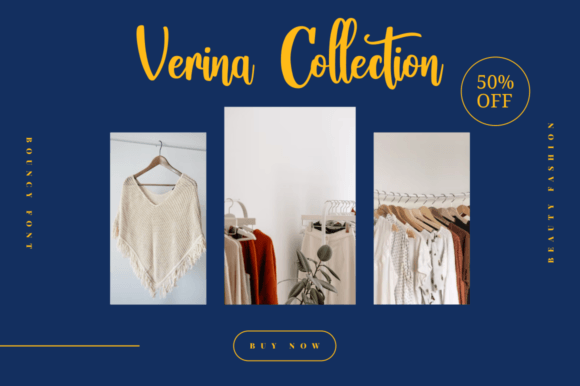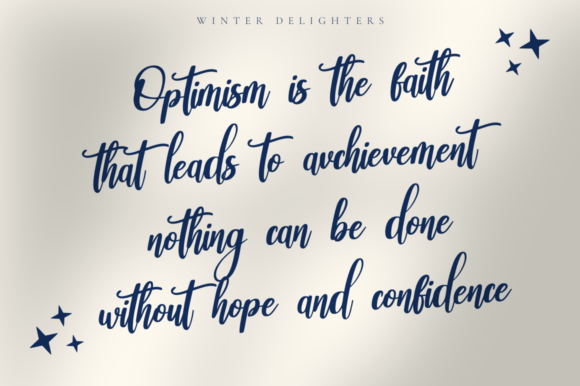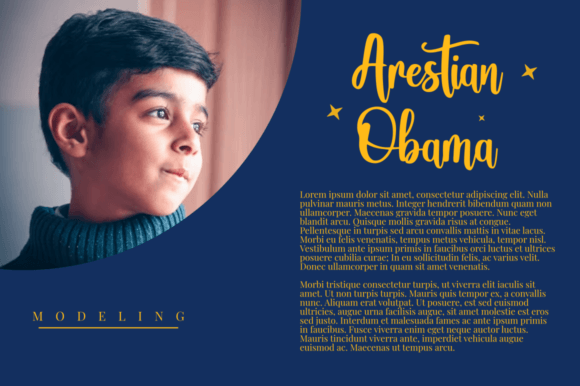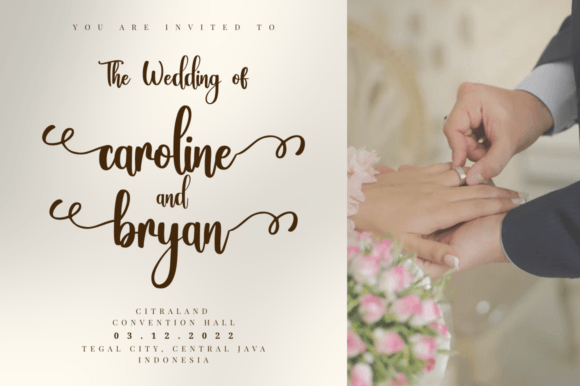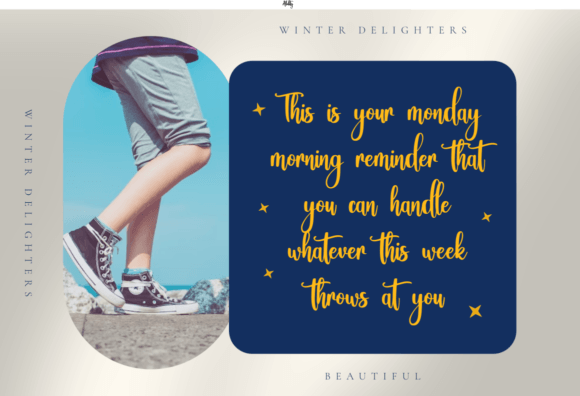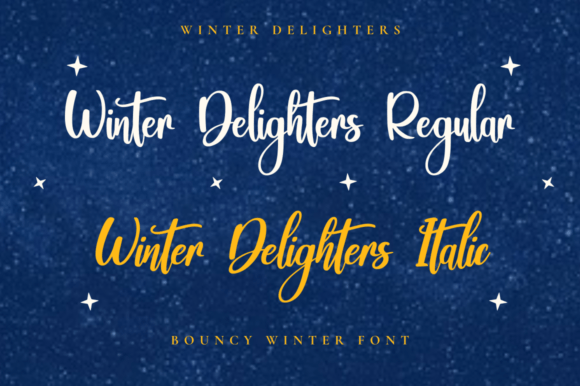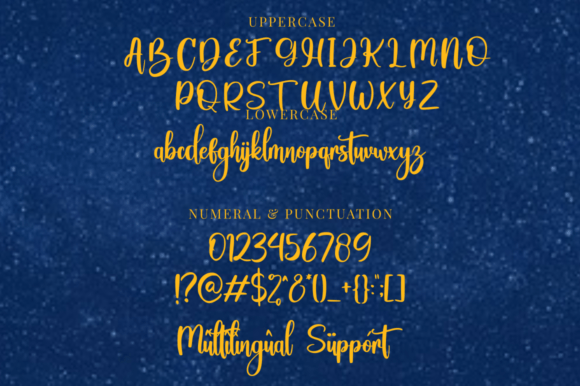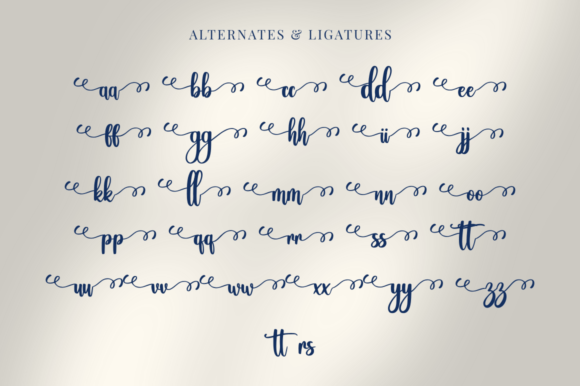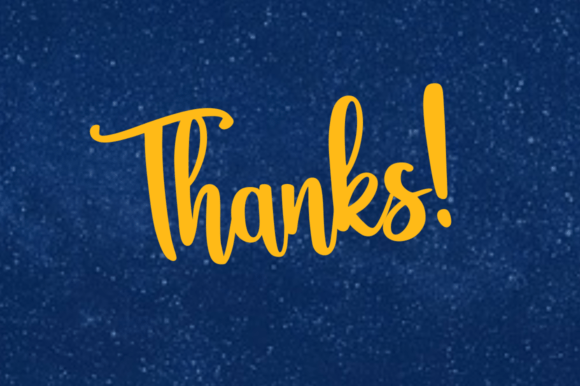
Winter Delighters Font
About Winter Delighters Font
Winter Delighters is a lovely and elegant handwritten script font. No matter the topic, this font will be an incredible asset to your fonts’ library, as it has the potential to elevate any creation. This font is PUA encoded which means you can access all the glyphs and ligatures with ease!